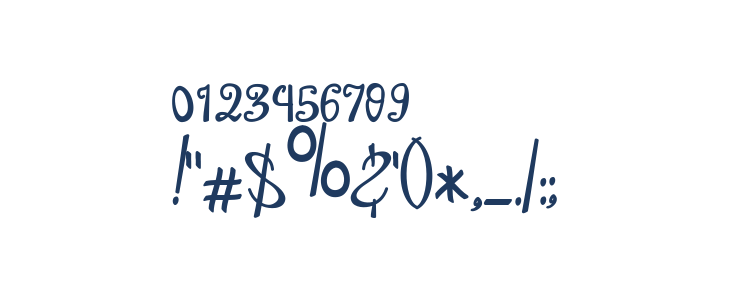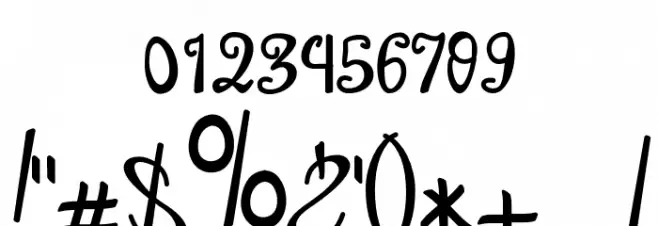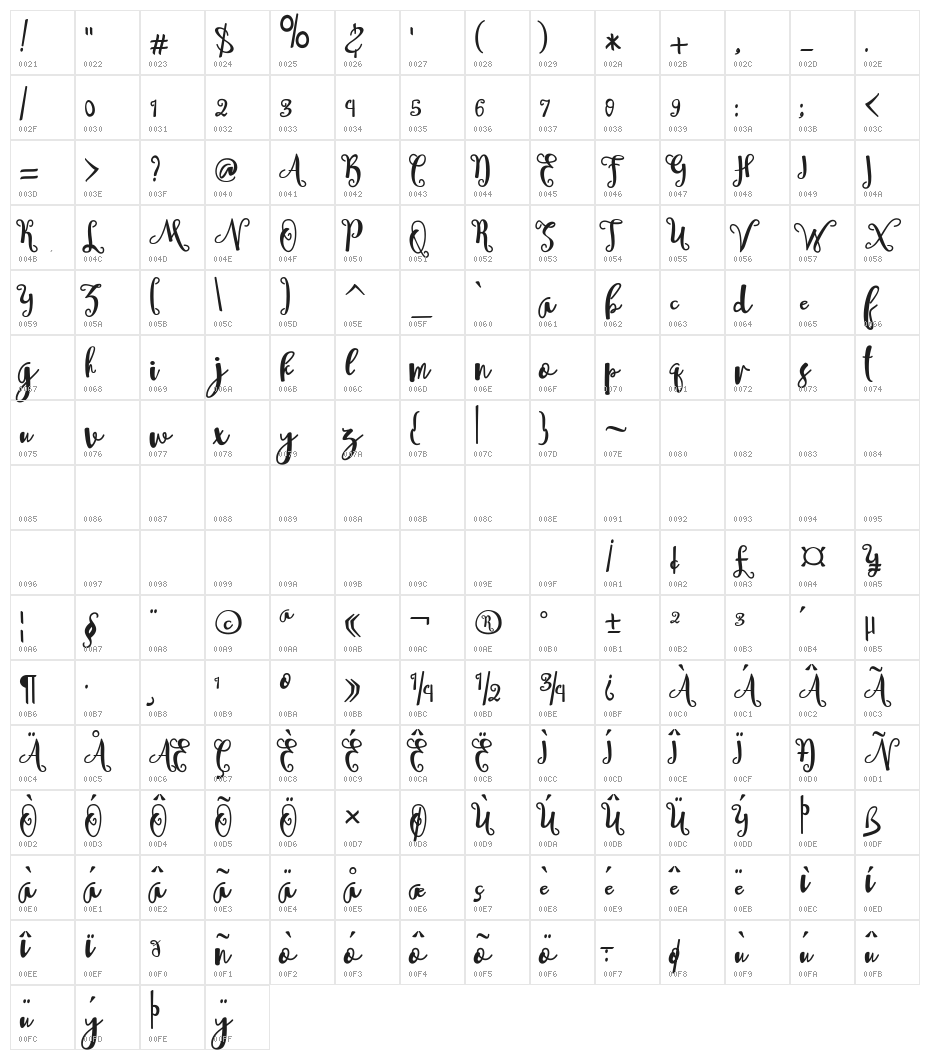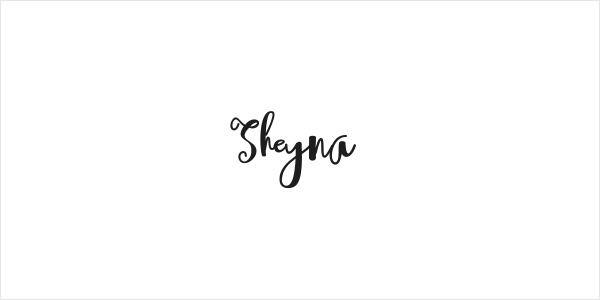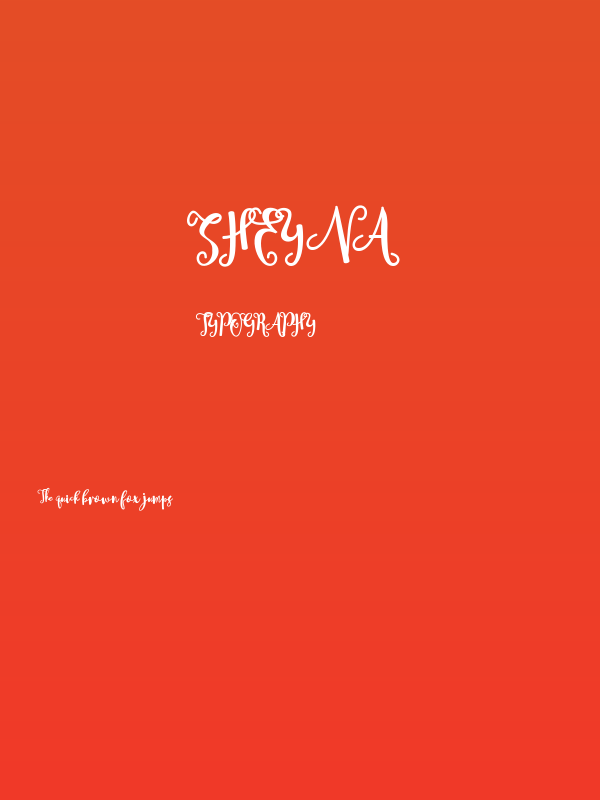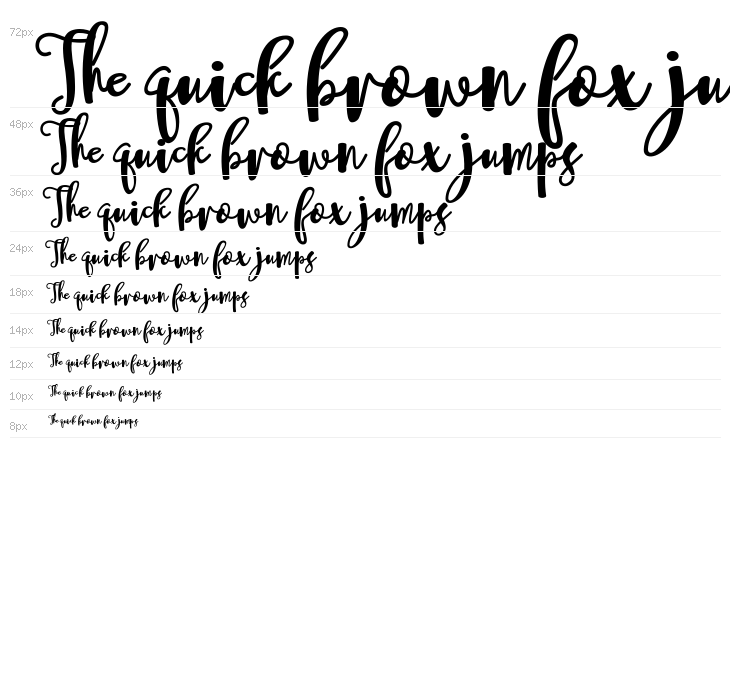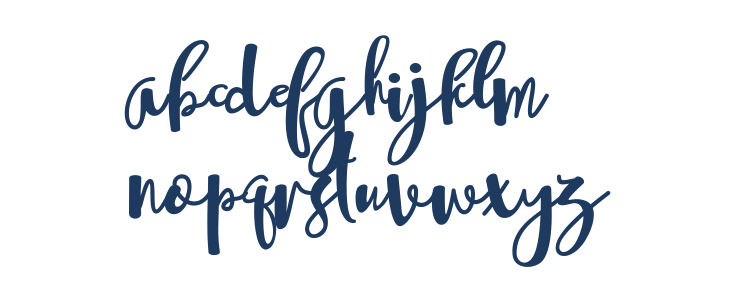
Sheyna Font
This font features an elegant and flowing script style with a playful and artistic flair. The uppercase letters are adorned with decorative swirls and loops, adding a sense of whimsy and sophistication. The lowercase letters maintain a consistent fluidity, with smooth curves and a handwritten appearance. Numbers and special characters are designed to match the overall aesthetic, ensuring a cohesive look across all text elements. This font's unique style makes it ideal for creative projects that require a personal touch.
| Proposed Projects | Ideal for wedding invitations, greeting cards, branding, and creative design projects that require a personal and artistic touch. |